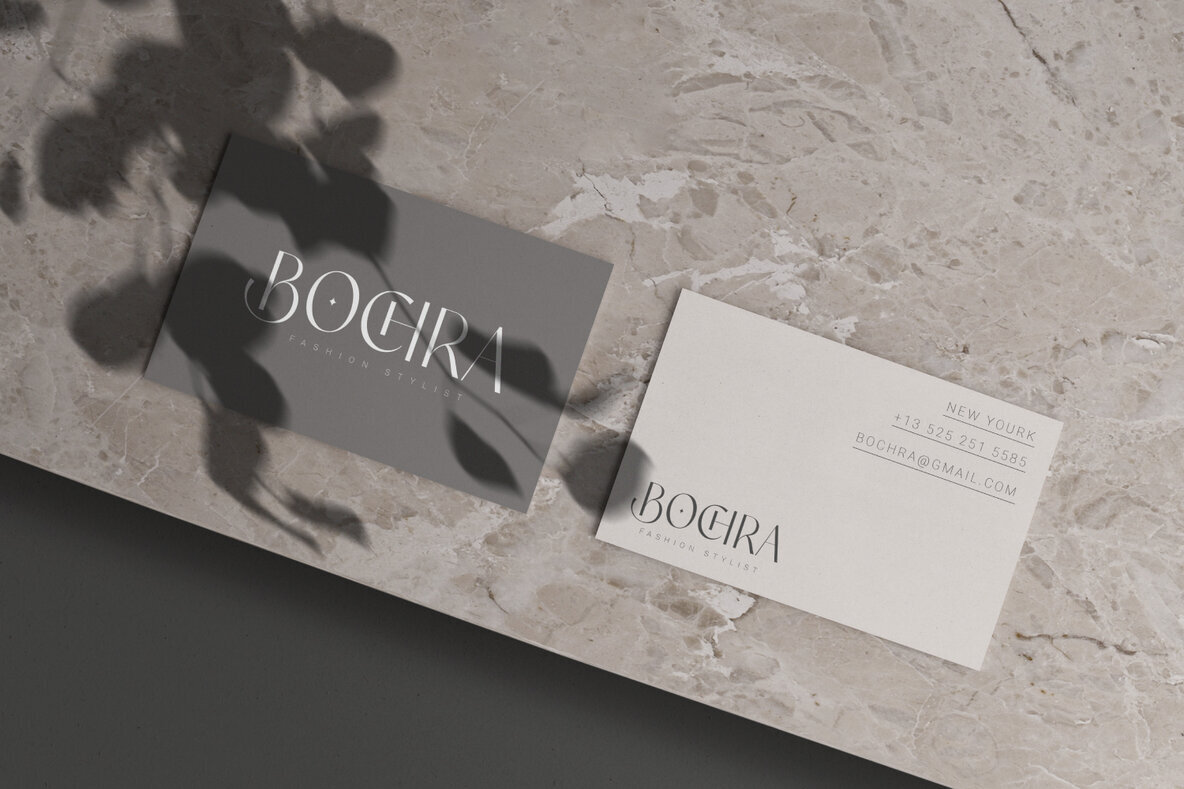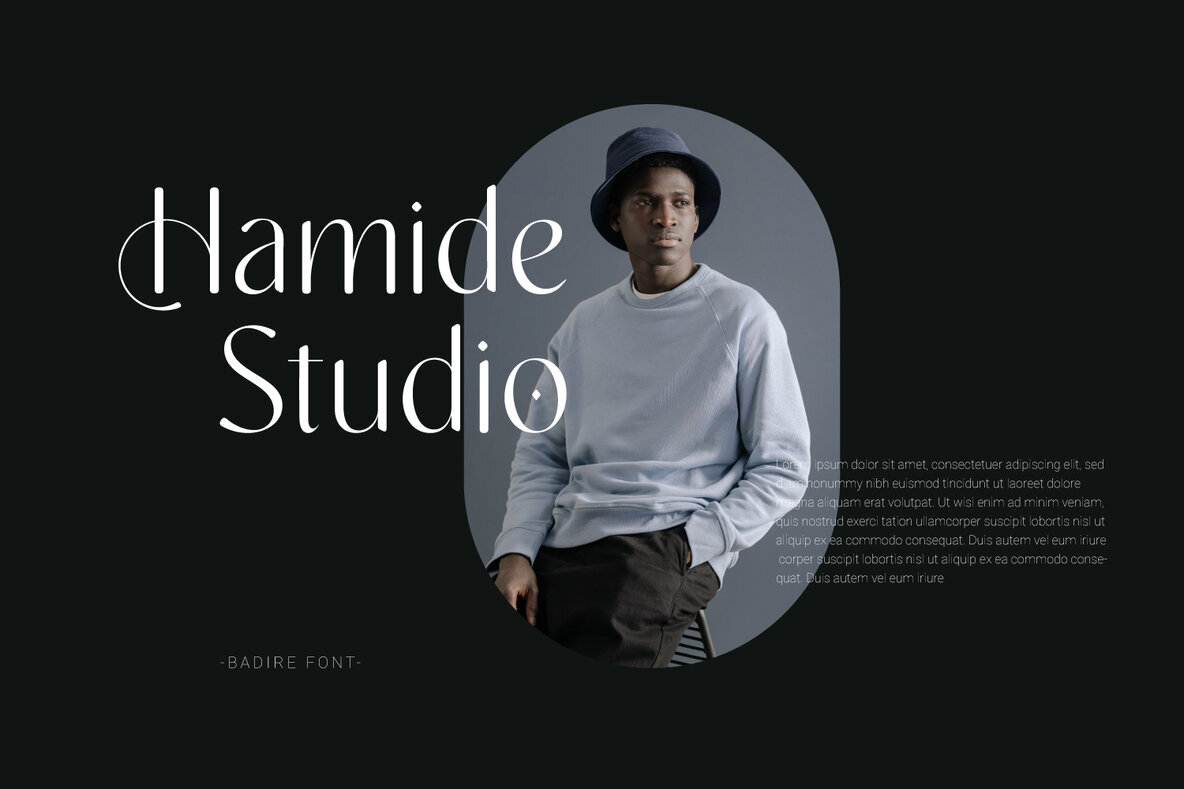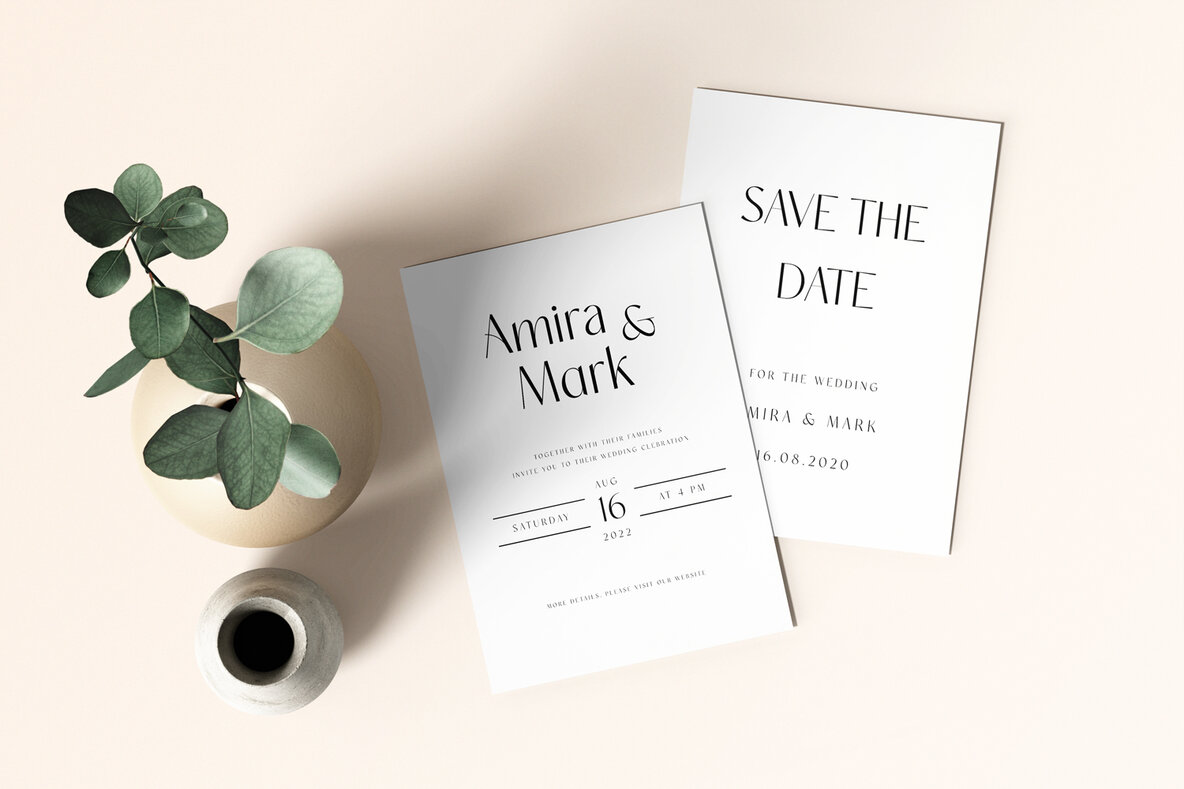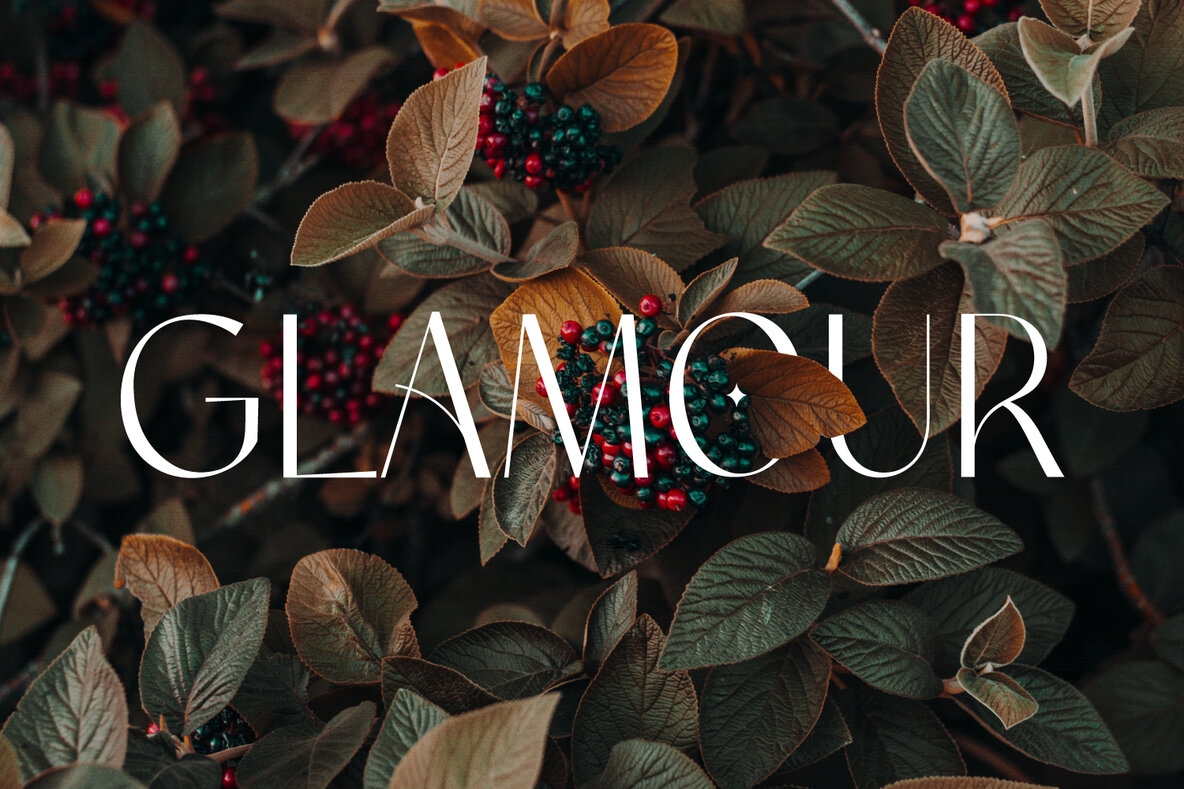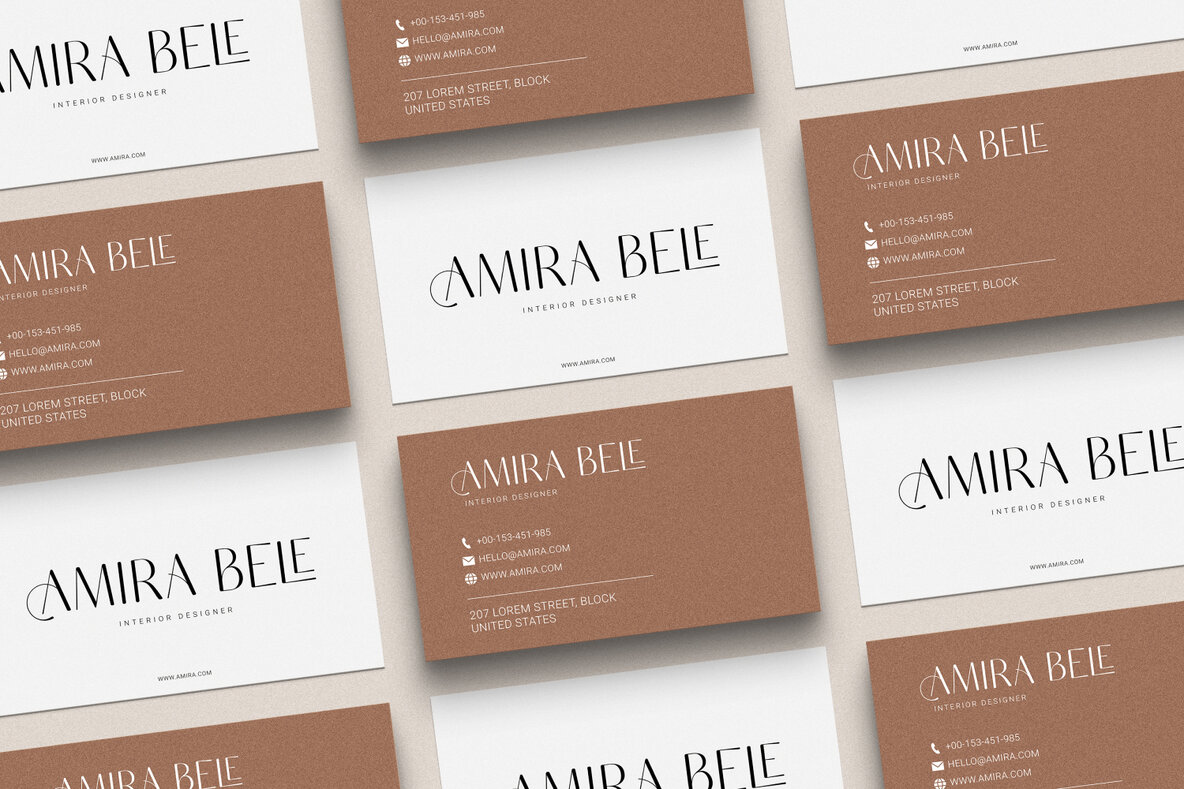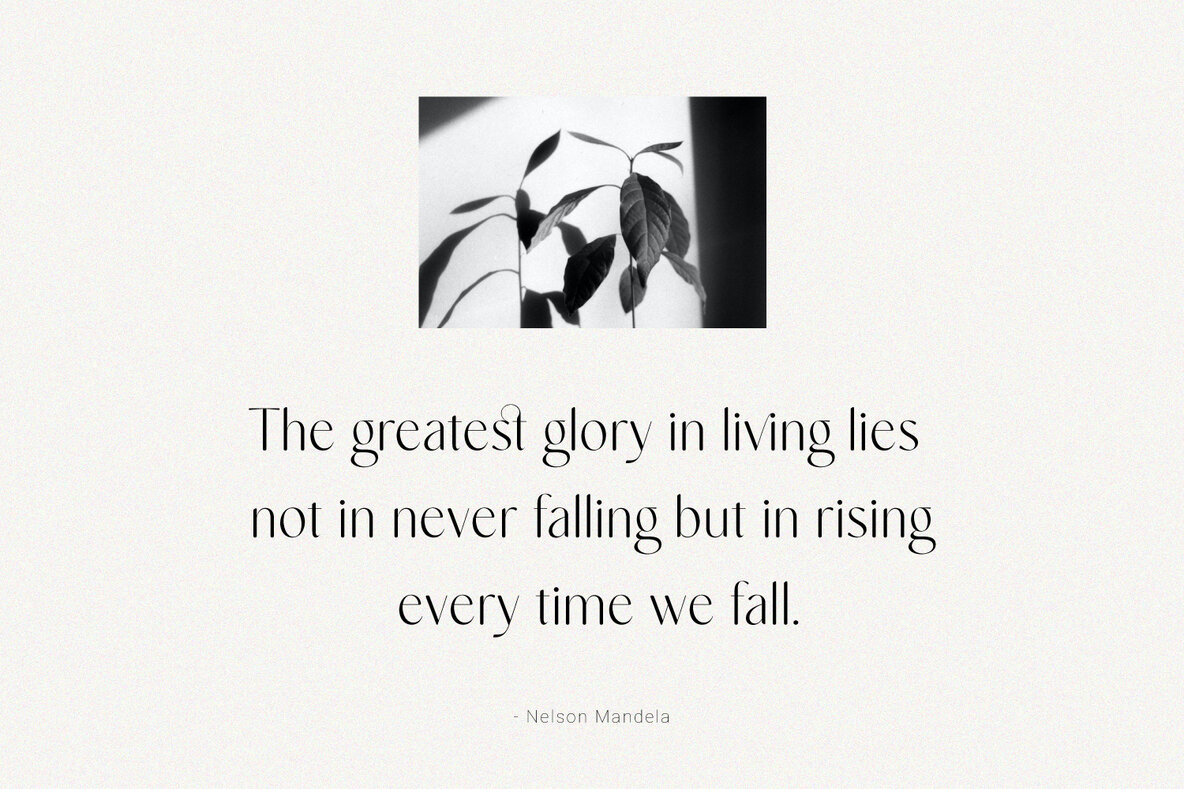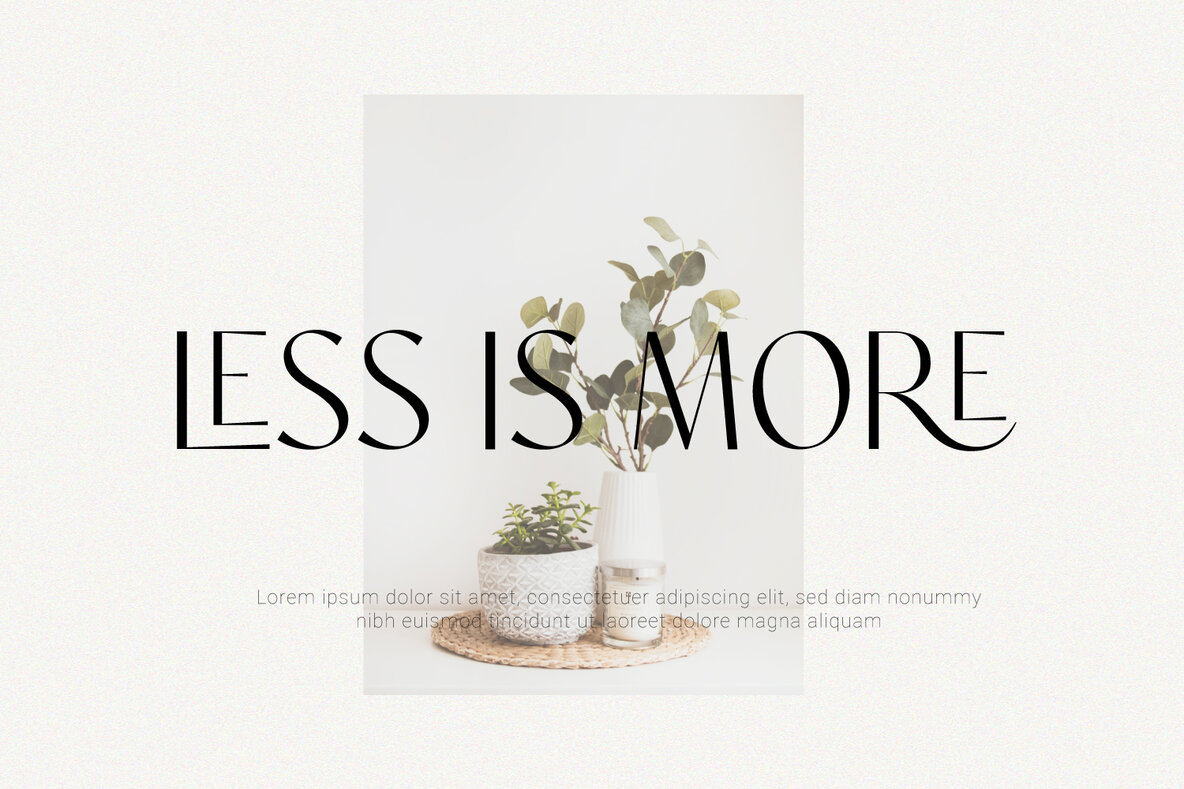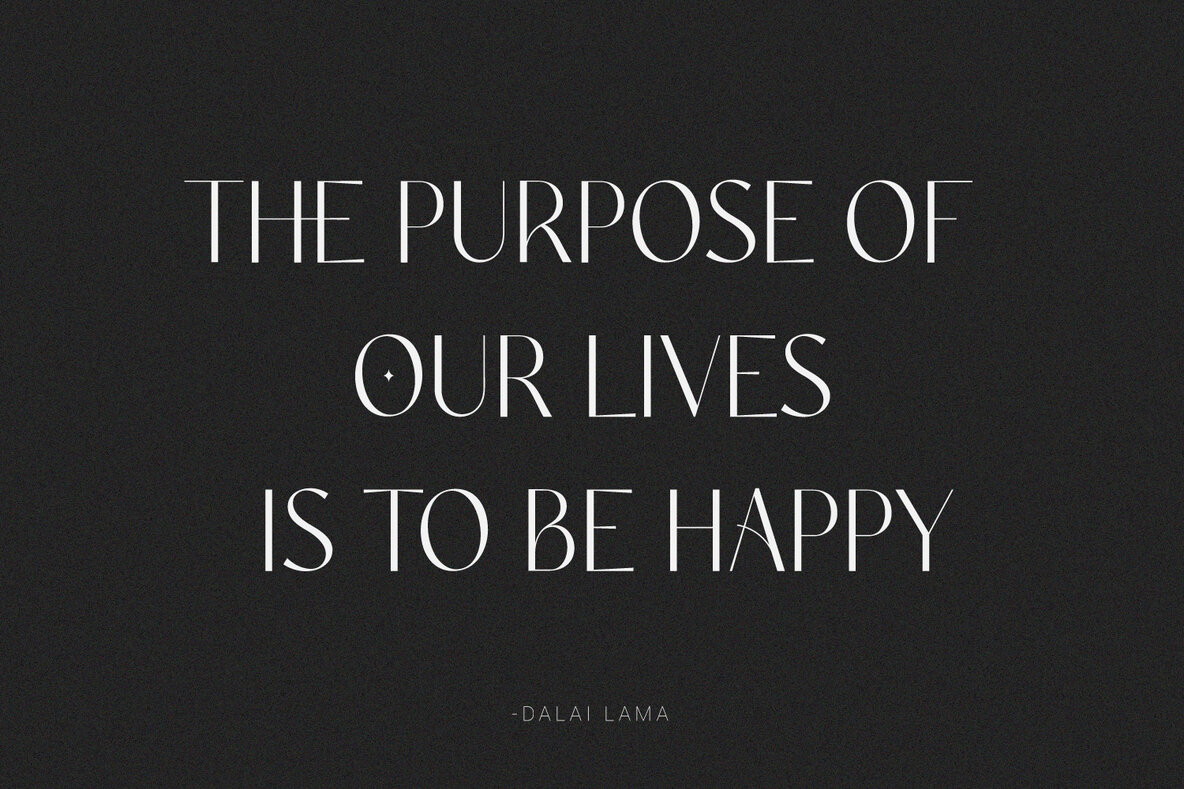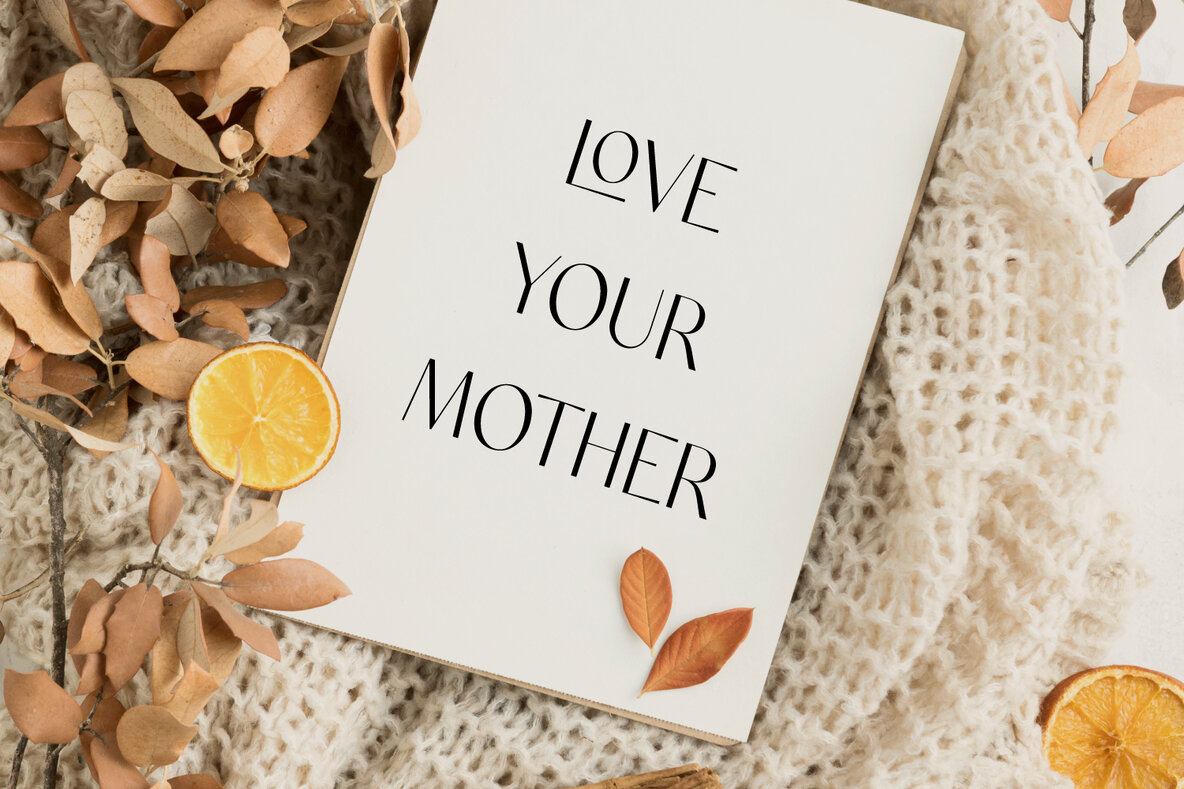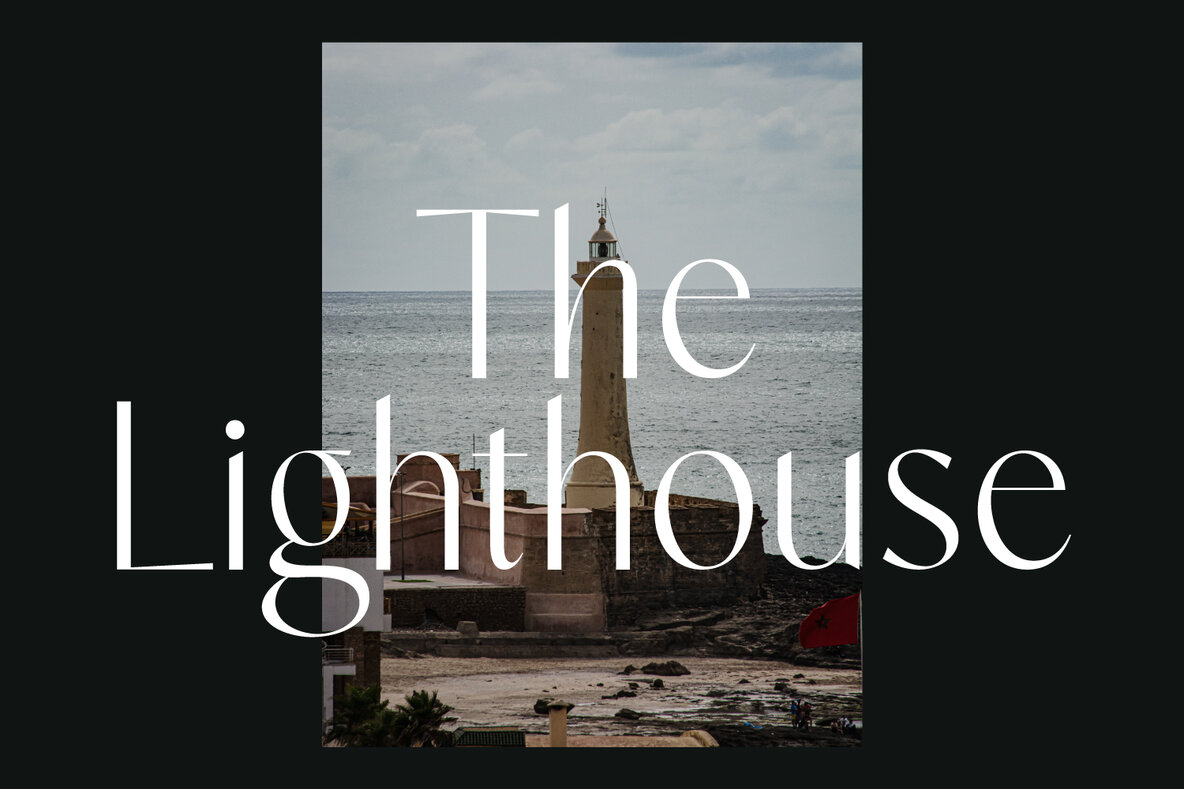
Badire Font
Badire Regular
Badire Italic
Badire Round
Badire RoundItalic
Badire is a beautiful and unique sans-serif font that is perfect for wedding invitations, branding, logos, product packaging and so much more. With its clean lines and distinctive design, Badire offers endless creative possibilities. It comes in regular, italic, round, and round italic font styles, and includes uppercase and lowercase letters, numbers, punctuation, ligatures, alternates, and multilingual support.”